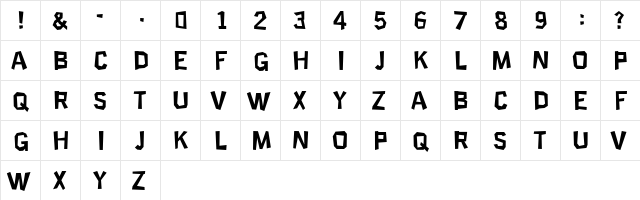
Science Project Regular
Design Context for Science Project Typeface
Science Project takes a measured approach to typography — its balanced proportions and neutral character make it a reliable workhorse for both digital and print work.